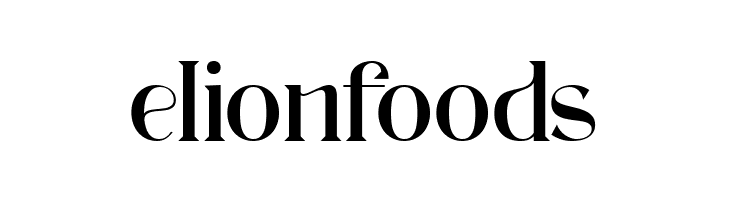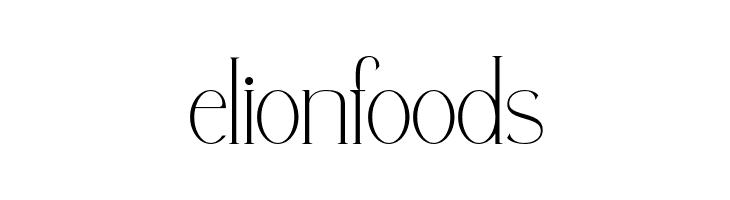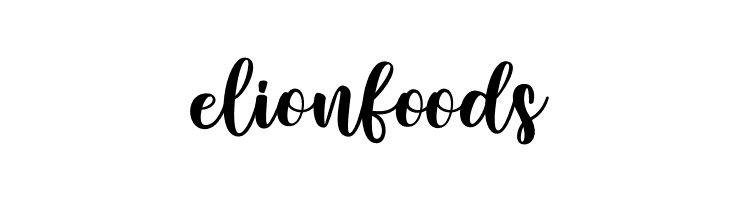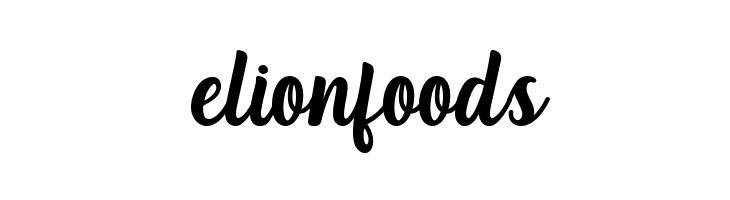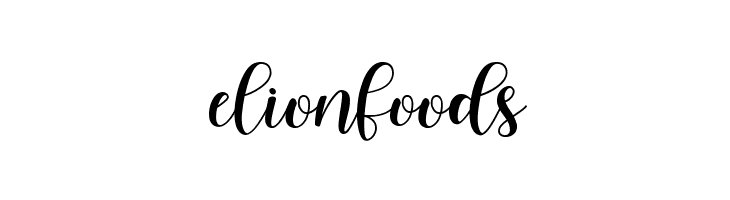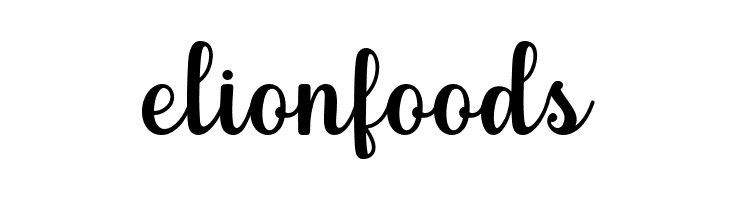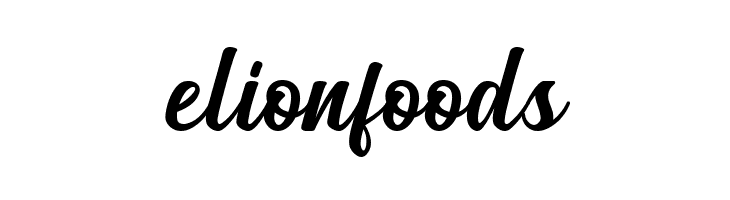
A high-contrast serif font with elegant, modern styling.
A modern, high-contrast font with elegant, slender characters.
A modern serif font with sharp serifs and elegant curves, perfect for sophisticated designs.
A bold, flowing script font with elegant curves and a cohesive design.
A bold, flowing script font with elegant curves and smooth strokes.
A graceful script font with flowing, cursive letters and elegant flourishes.
A playful and elegant script font with a handwritten feel.
A charming script font with elegant swirls and a playful flair.
A lively cursive script font with fluid, connected letters and elegant curves.
A decorative and playful font with elegant curls and loops.